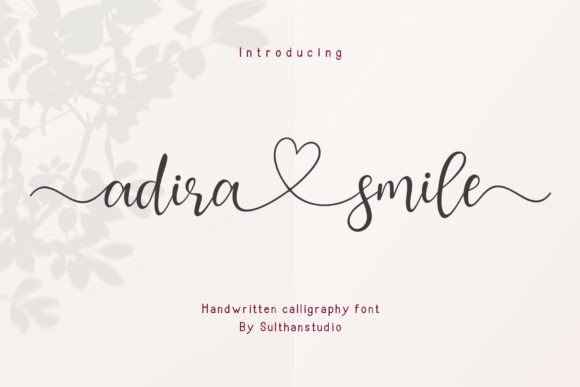
Introduction to Adira Smile Font
Adira Smile feels equally charming and elegant.
It looks stunning on wedding invitations, thank you cards, quotes, greeting cards, logos, business cards, and every other design which needs a handwritten touch .
Key Features of Adira Smile Font